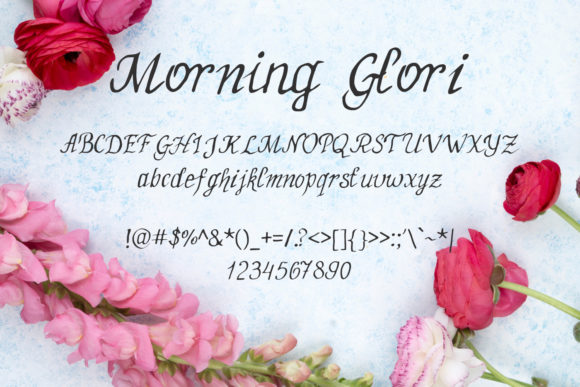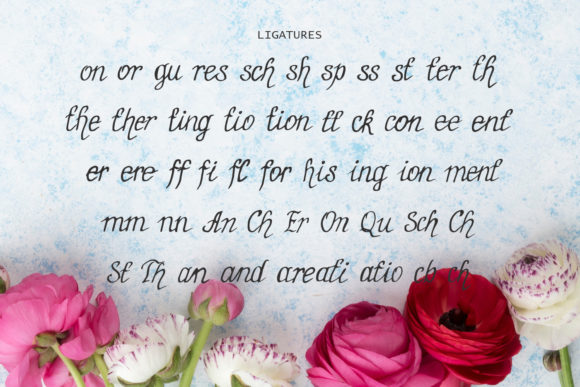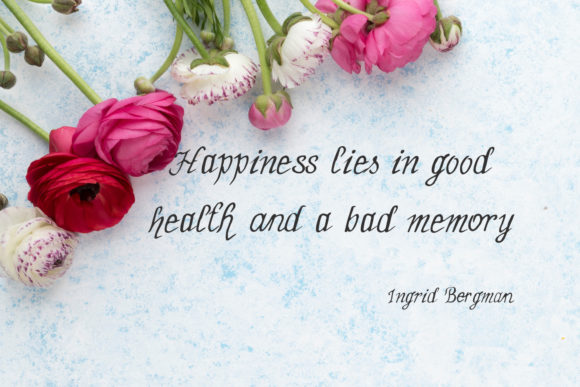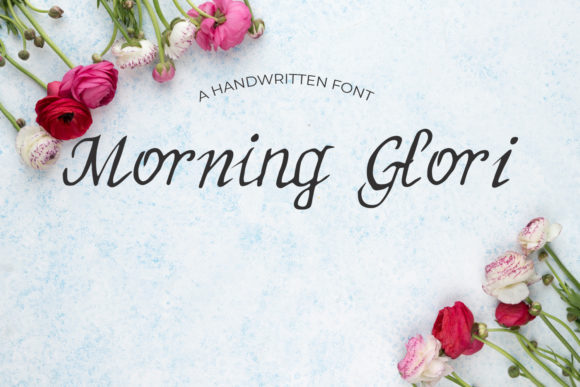
Morning Glori Font
The Morning Glori is an elegant, handwritten script with an unique and detailed look. It looks amazing in all caps with a wide-set spacing if you want to try a classy look, or beautiful on its own in capital and lowercase letters for something completely timeless.
It’s perfect for gorgeous logos, displays, headers, invitations, save the dates, weddings, titles, web layouts and branding, etc.